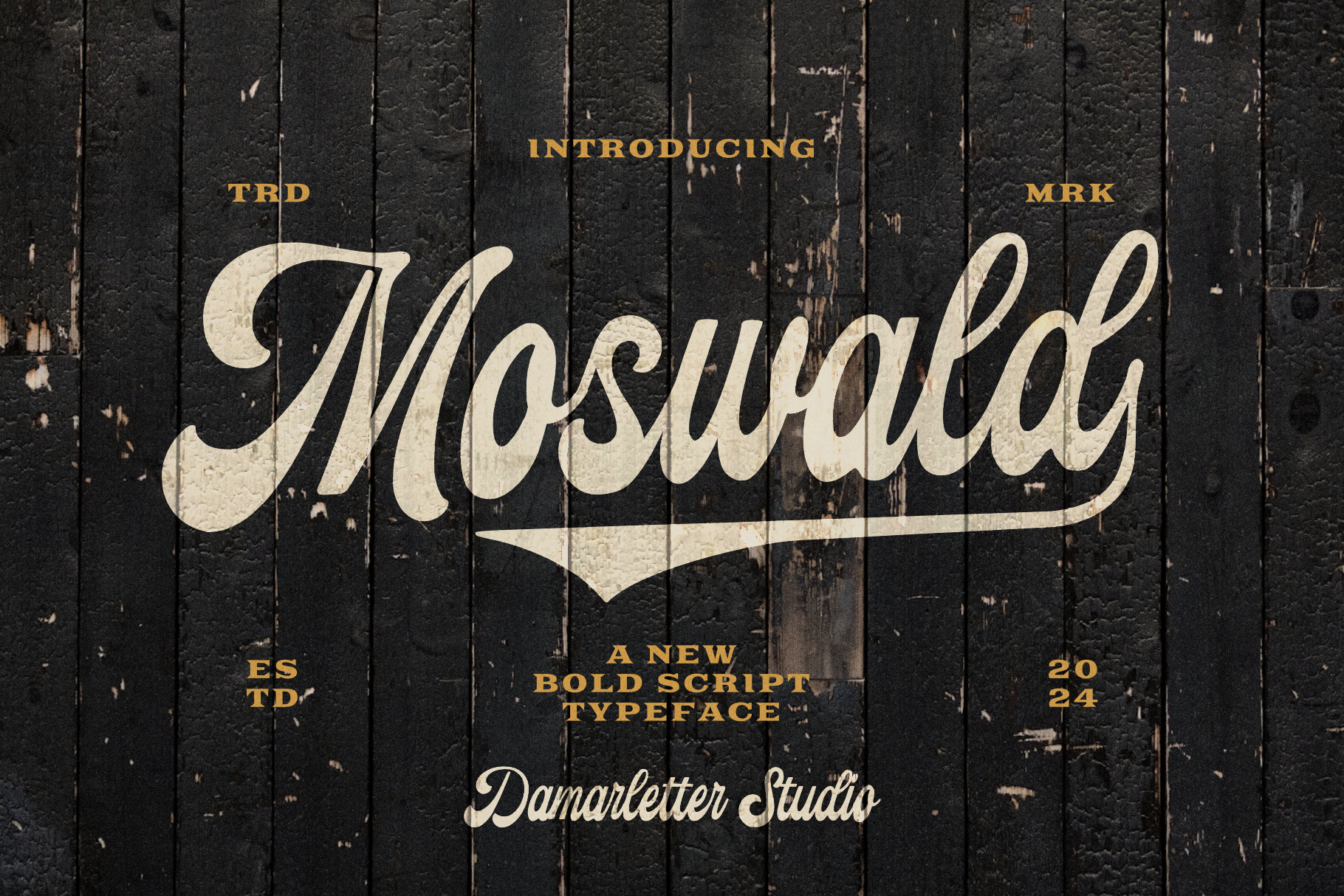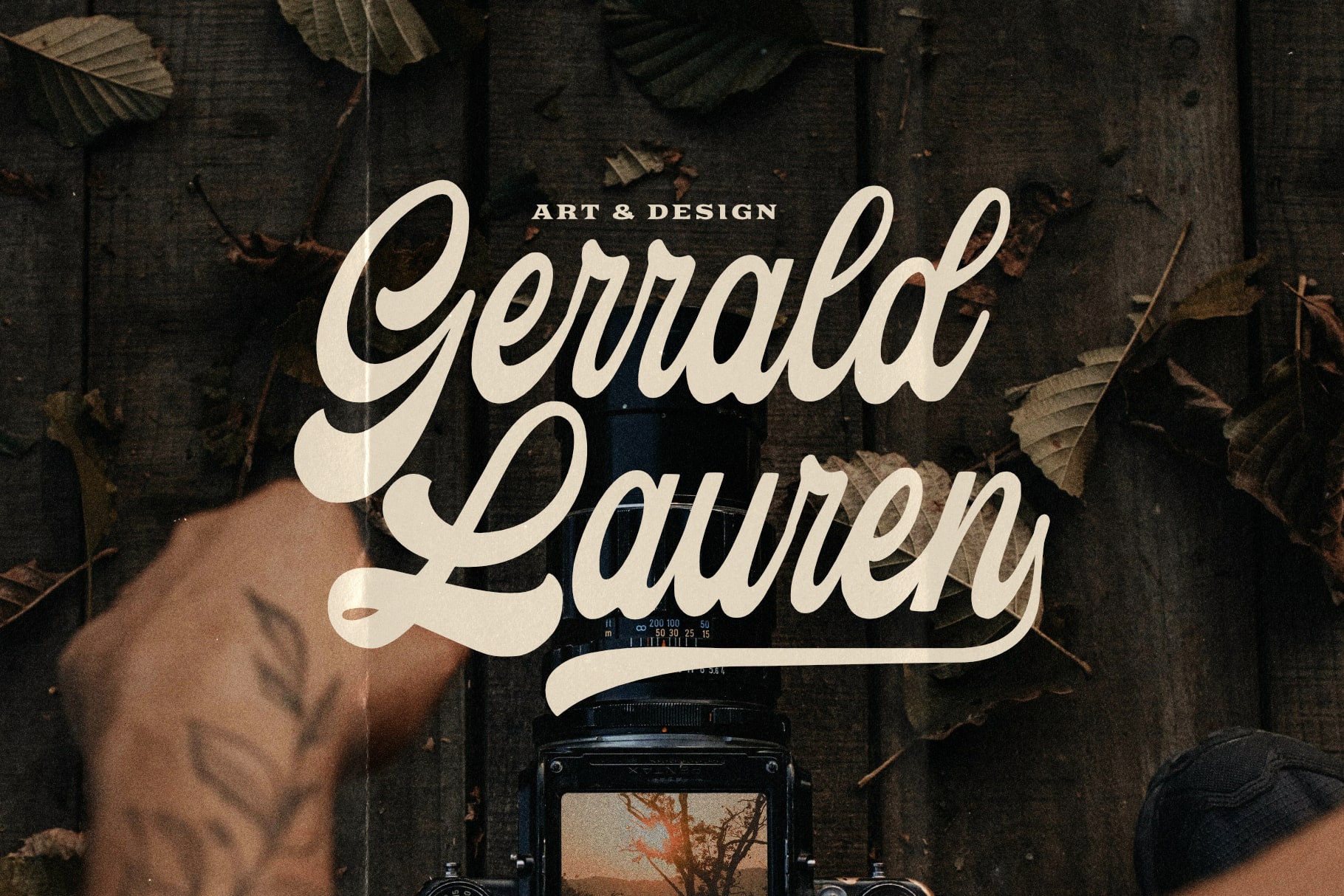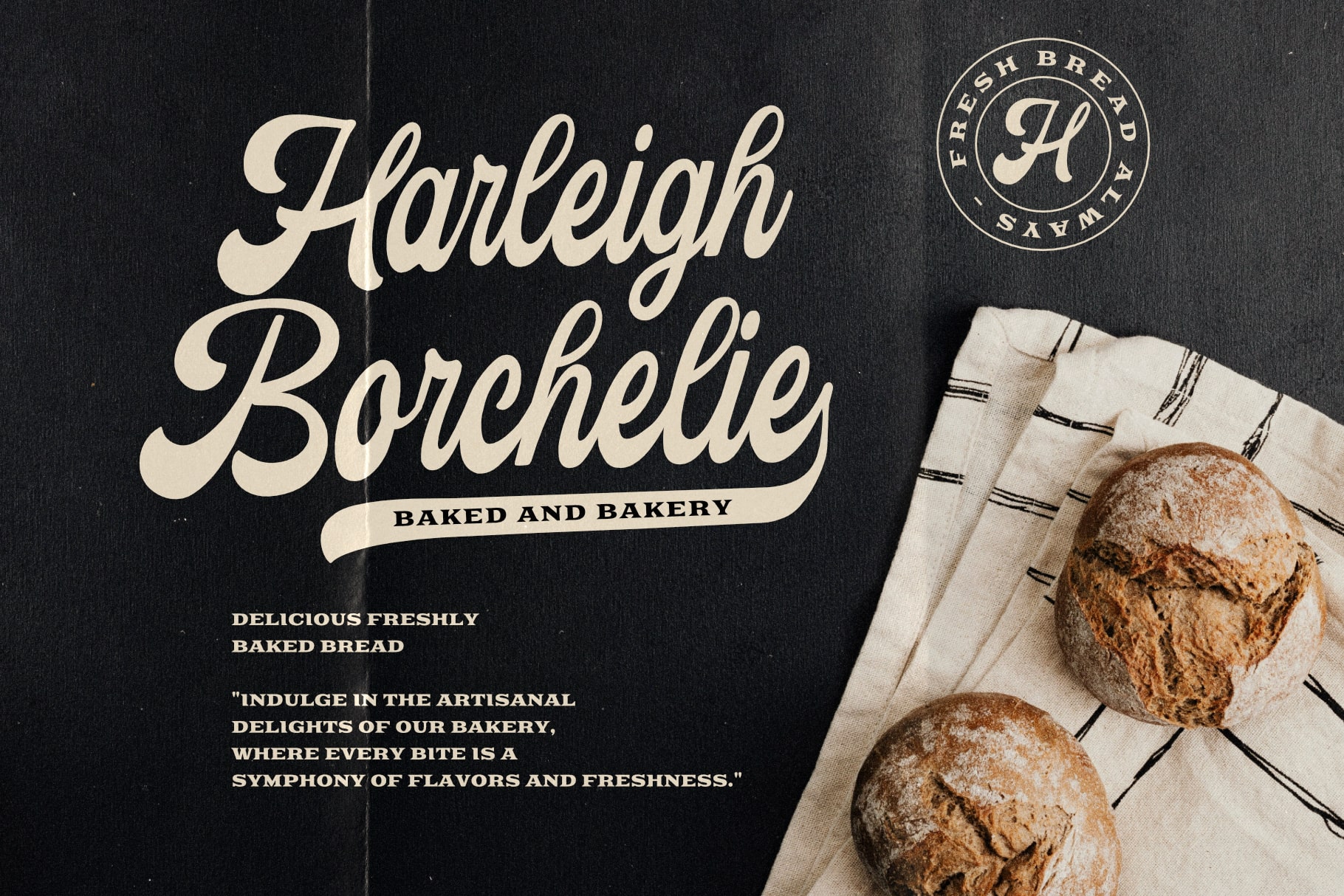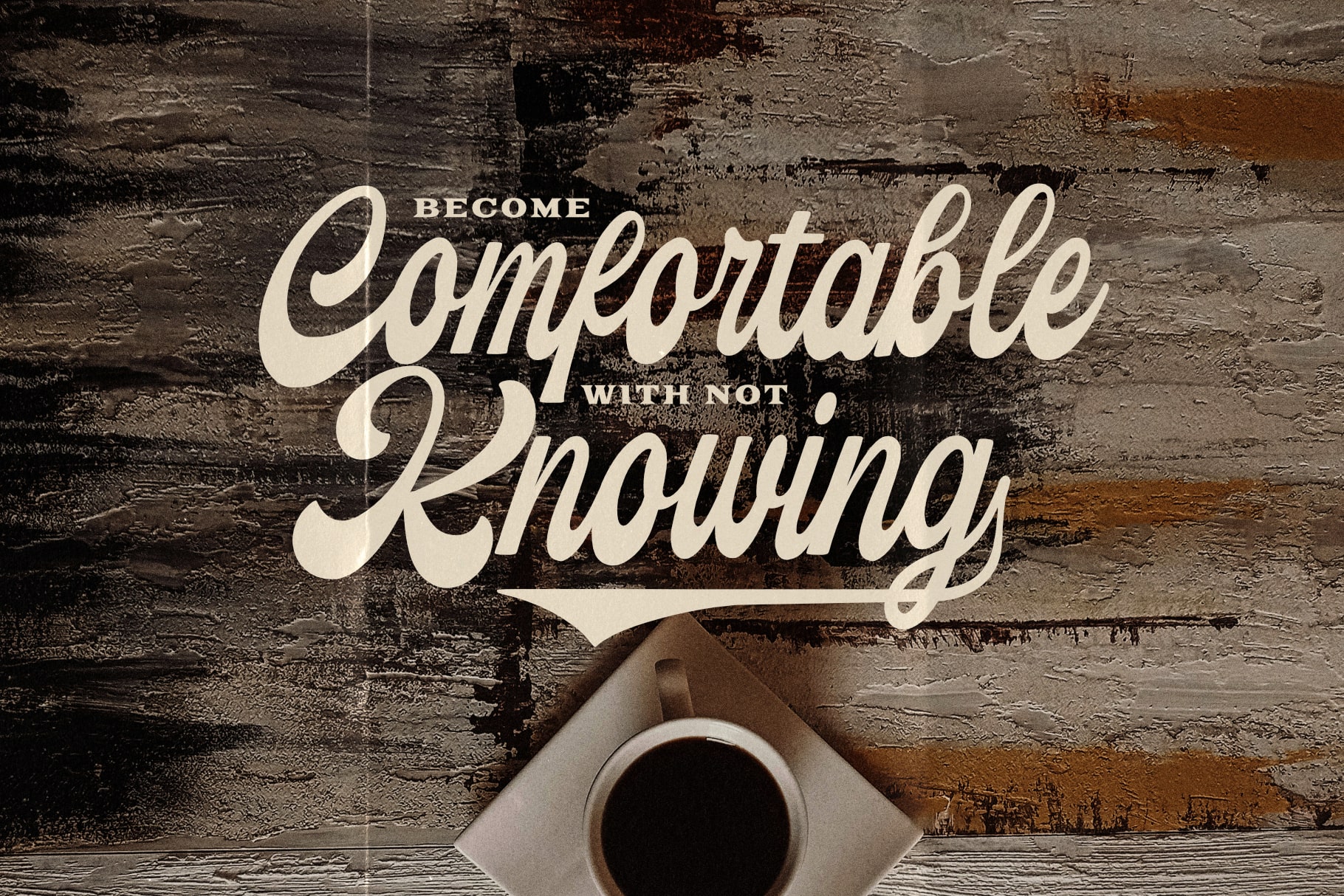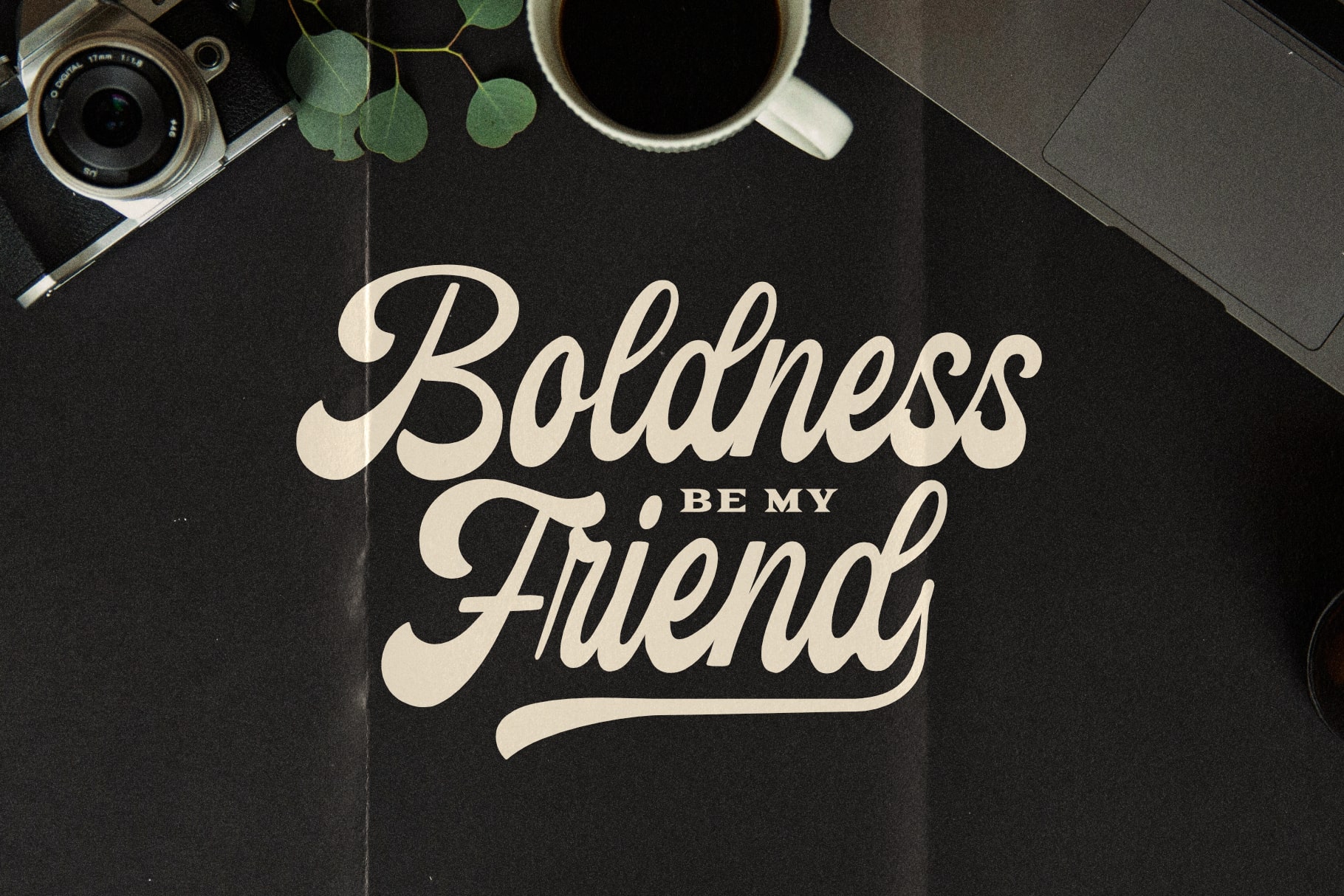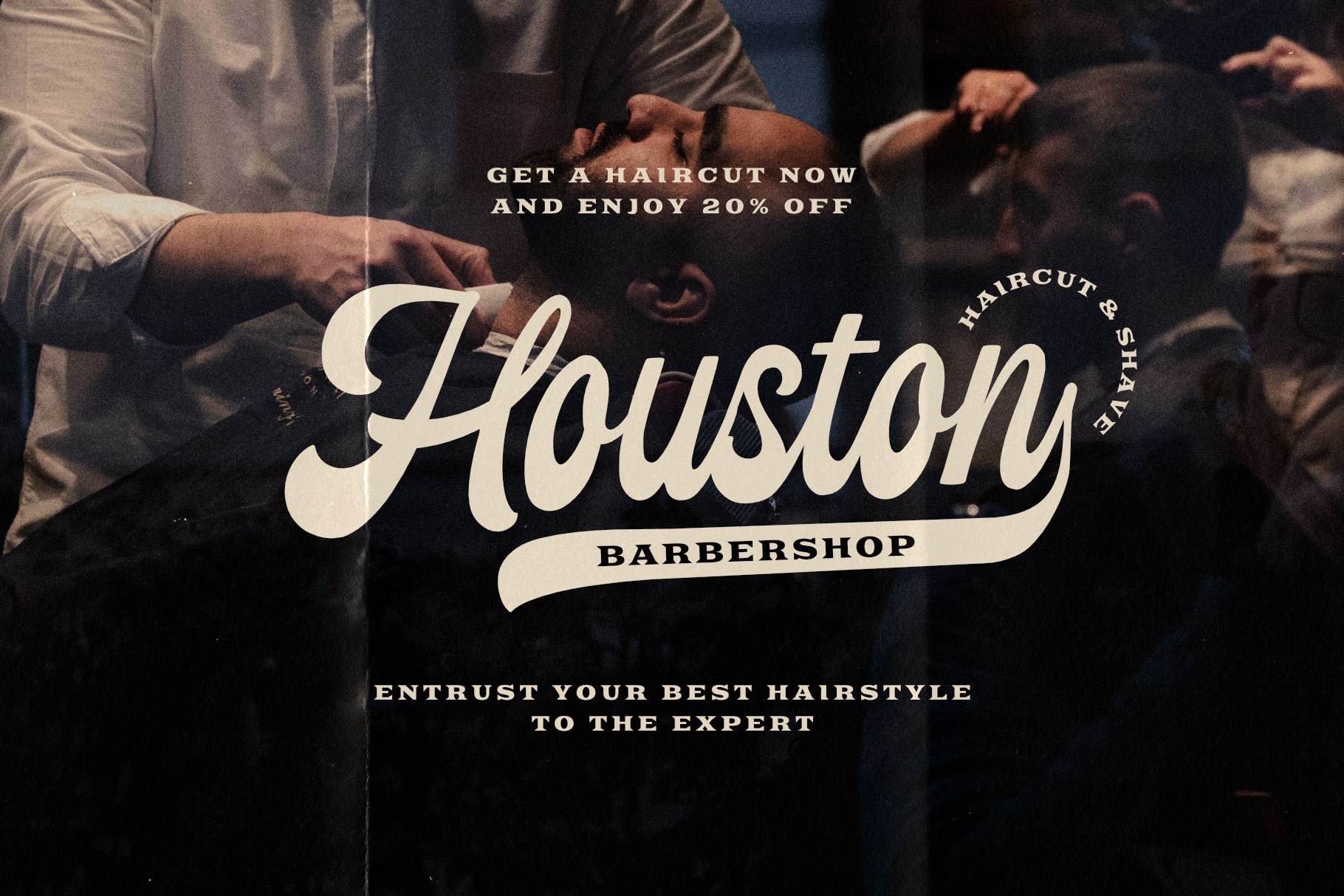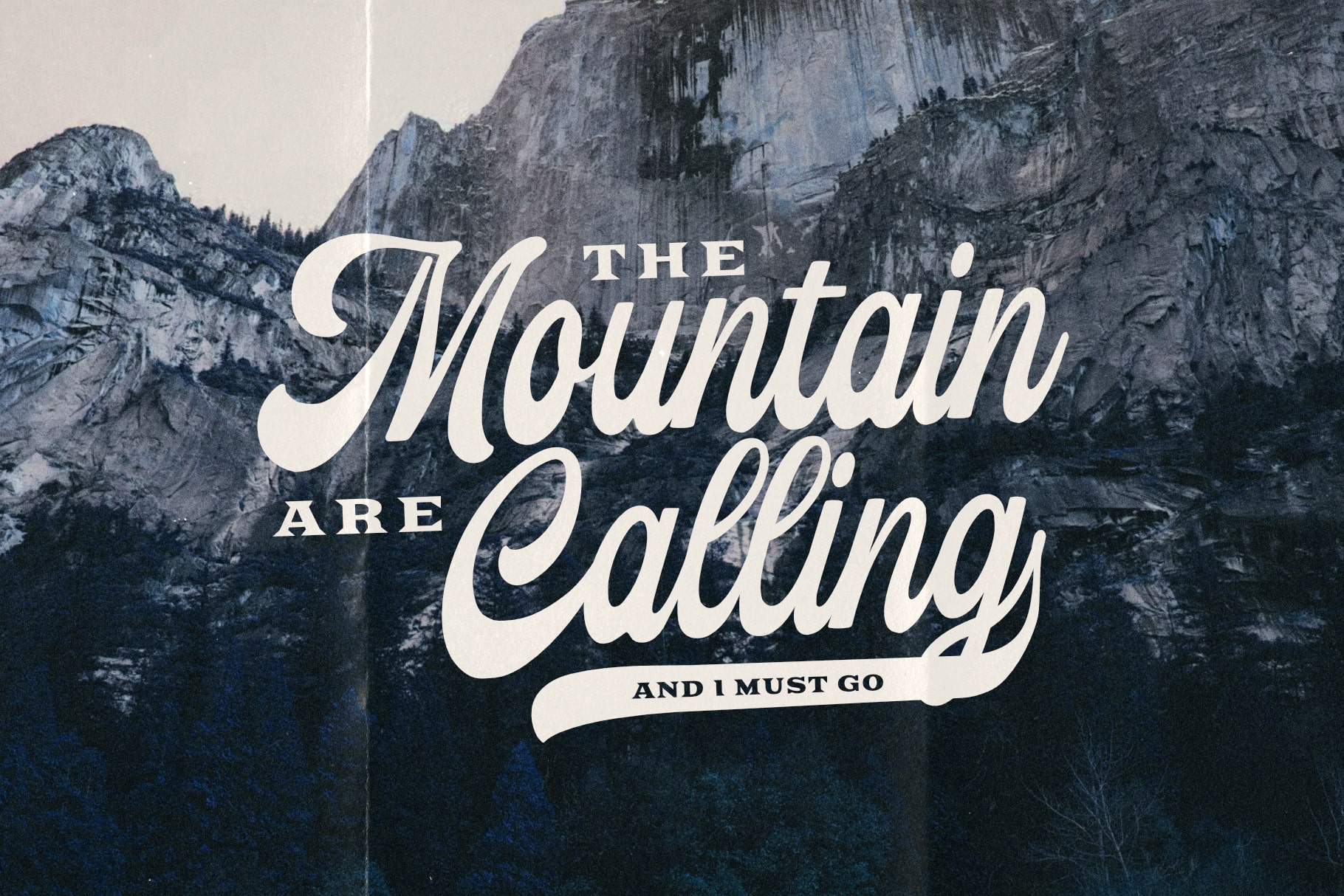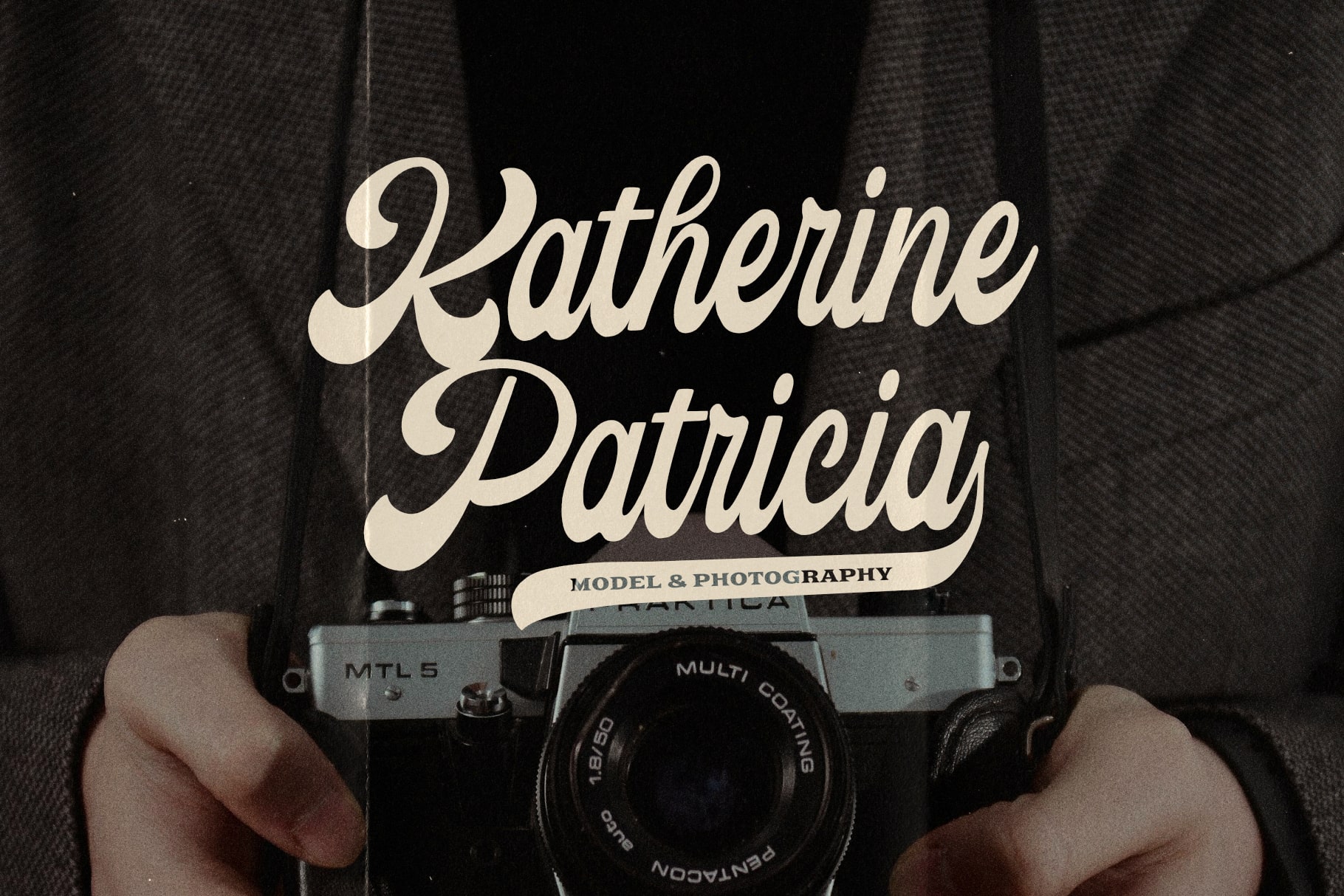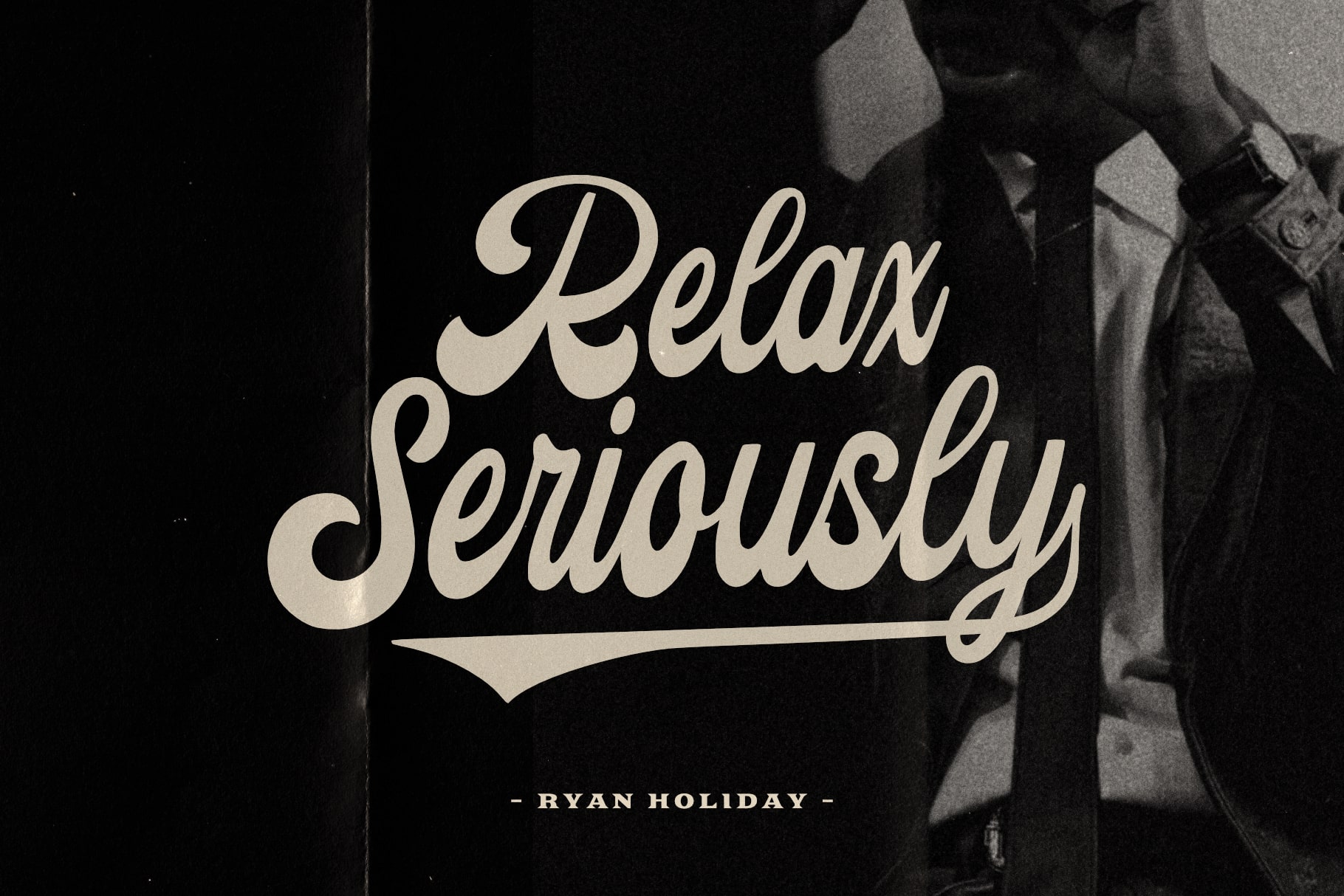
- Moswald Script Typeface
Moswald is an elegant and versatile script font that embodies sophistication and grace. With its fluid strokes and refined letterforms, this font brings a touch of timeless beauty to your designs. Inspired by classic calligraphy, Moswald strikes the perfect balance between traditional elegance and contemporary flair.
The font’s graceful curves and gentle flourishes make it ideal for a wide range of applications, from wedding invitations and branding to editorial design and signage. Whether you’re creating elegant logos, luxurious packaging, or romantic greeting cards, Moswald adds a touch of refinement and charm to every project.
Moswald invites you to explore the artistry of handwritten expression. Each letter is meticulously crafted to convey a sense of elegance and poise, making your words come to life with a touch of sophistication. Embrace the refined beauty of Moswald script font and elevate your designs with its timeless allure.